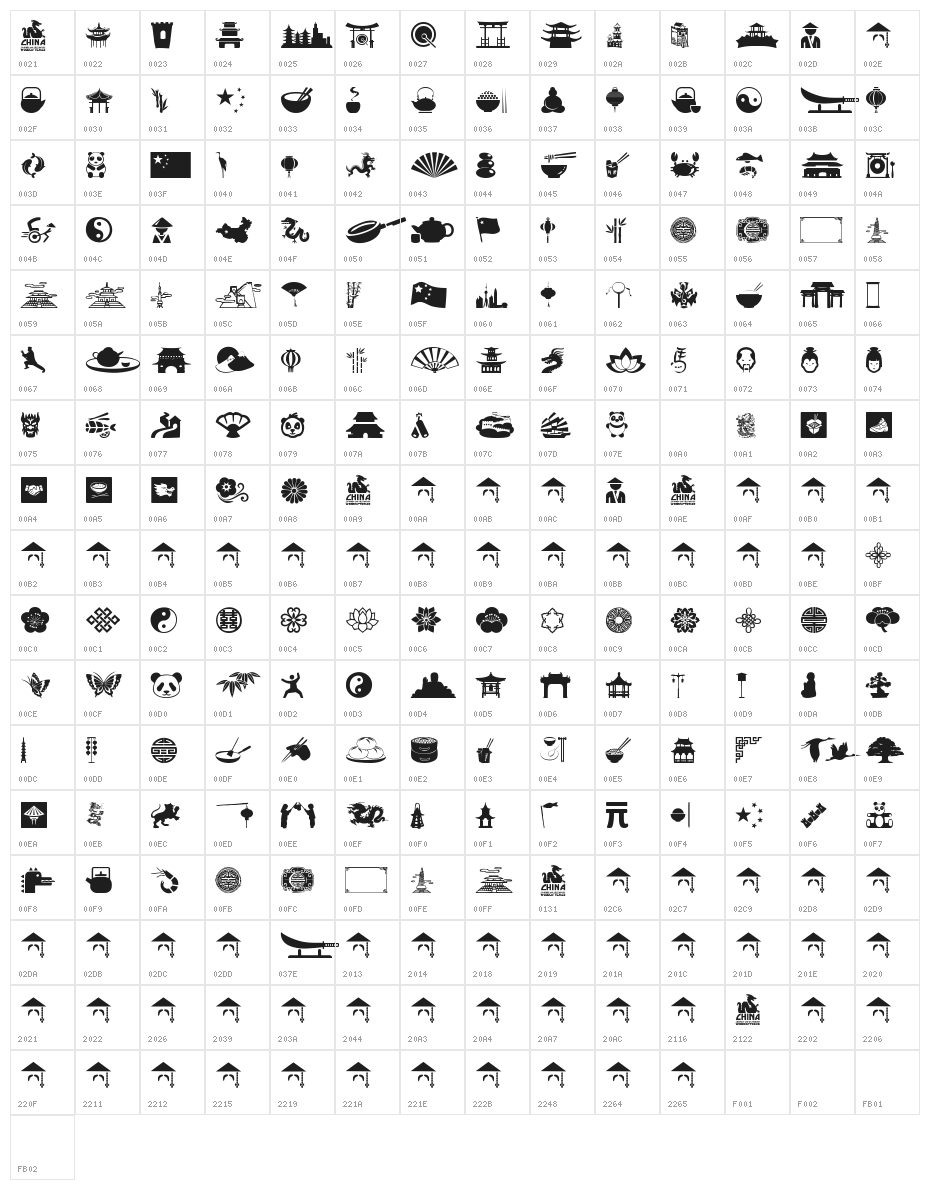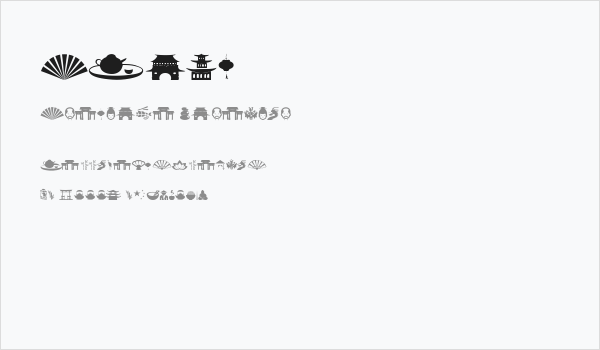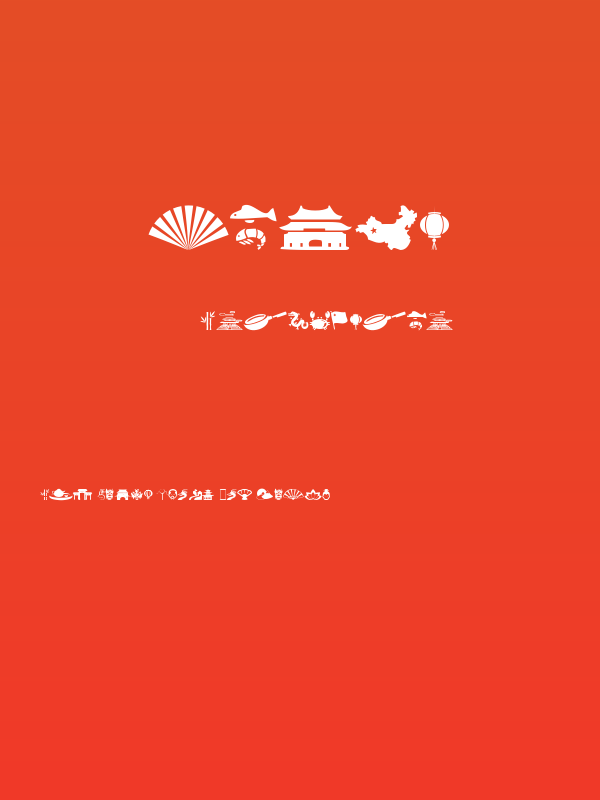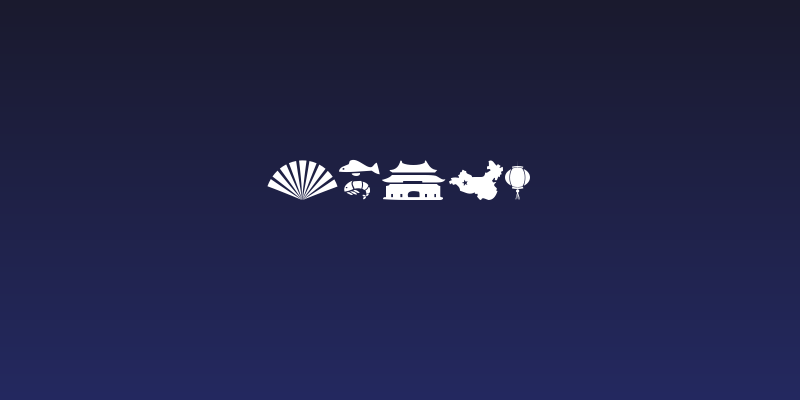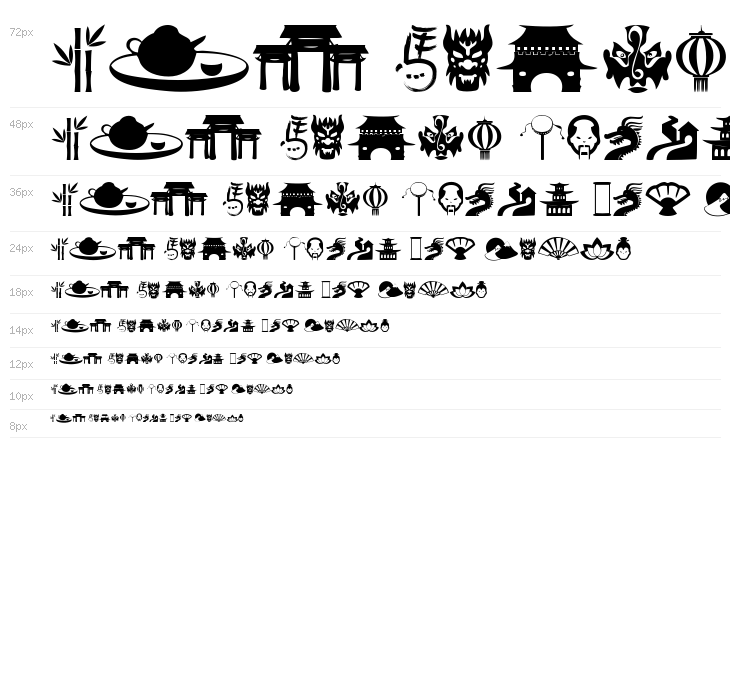
China Font
China Description
A decorative dingbat font featuring a variety of Chinese cultural icons, including dragons, fans, temples, food, lanterns, pandas, and traditional architecture, rendered in bold black silhouettes.
| Overall Style | Decorative, Thematic, Cultural |
| Use Case | Logos, Headlines, Themed graphics, Decorative elements |
| Proposed Projects | Travel brochures, restaurant menus, event posters, educational materials, themed invitations. |